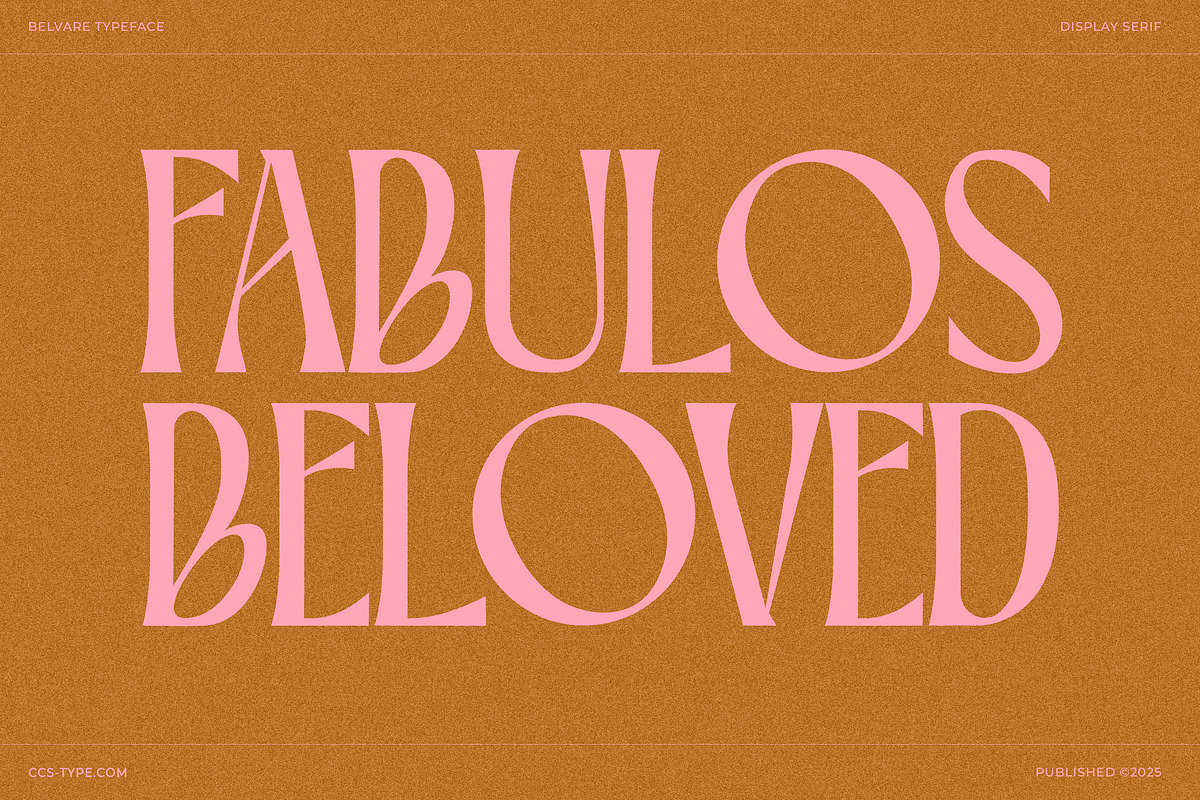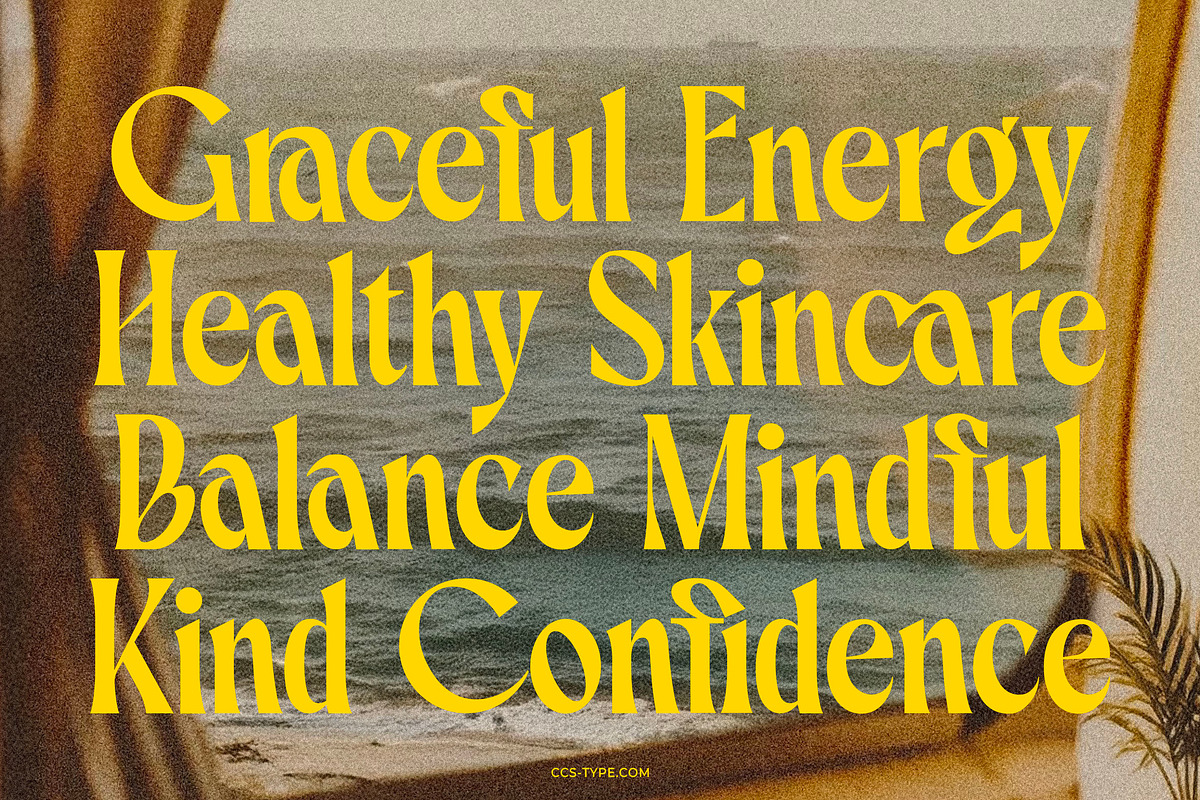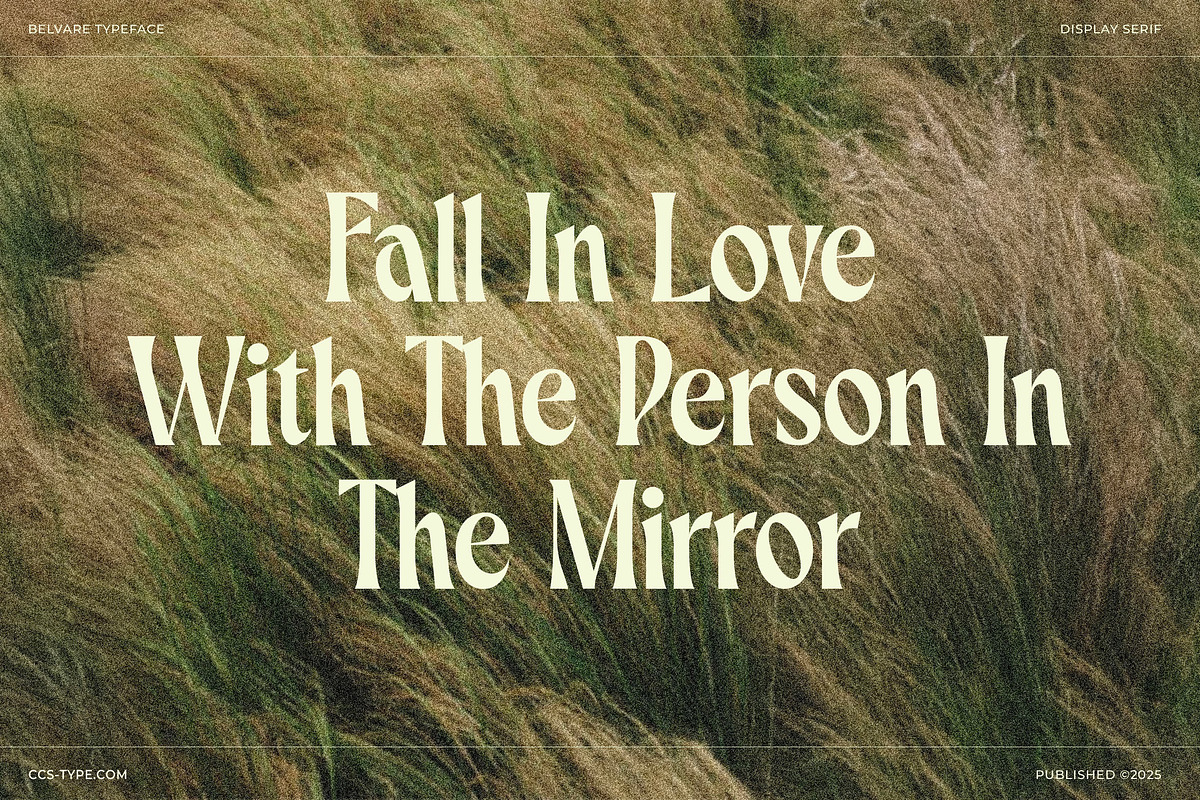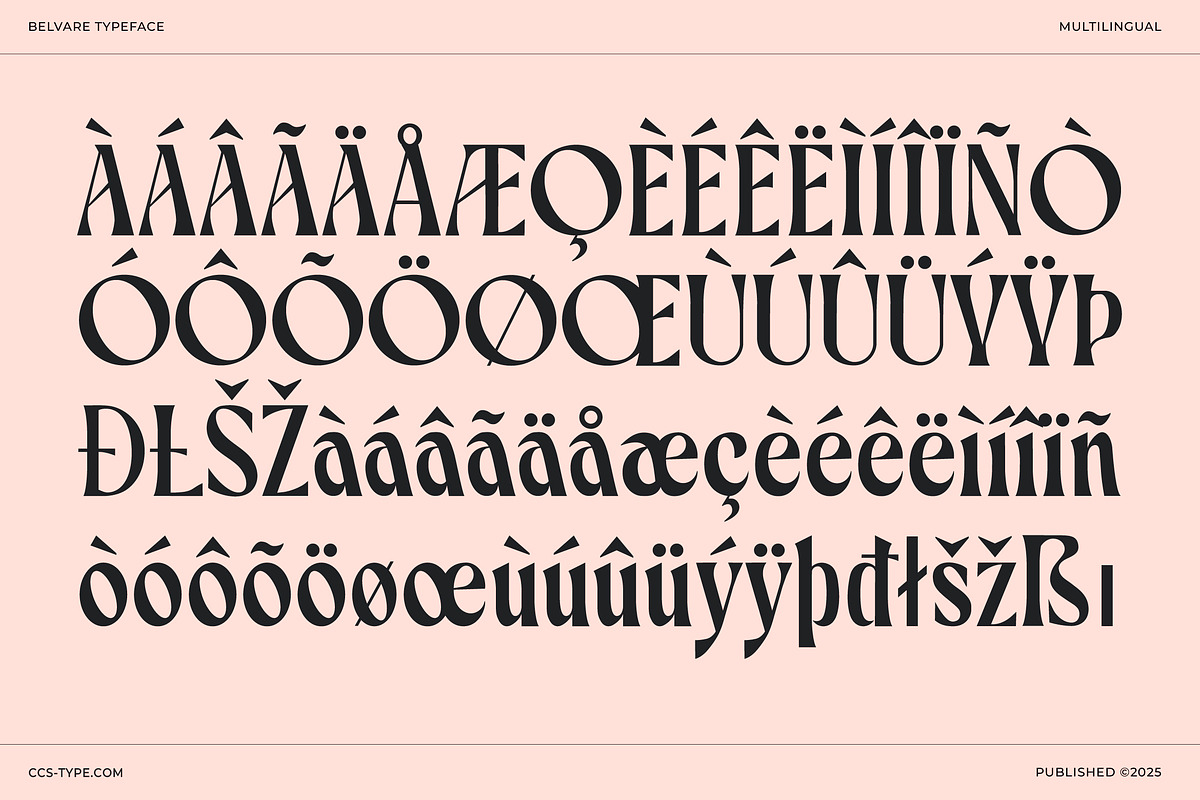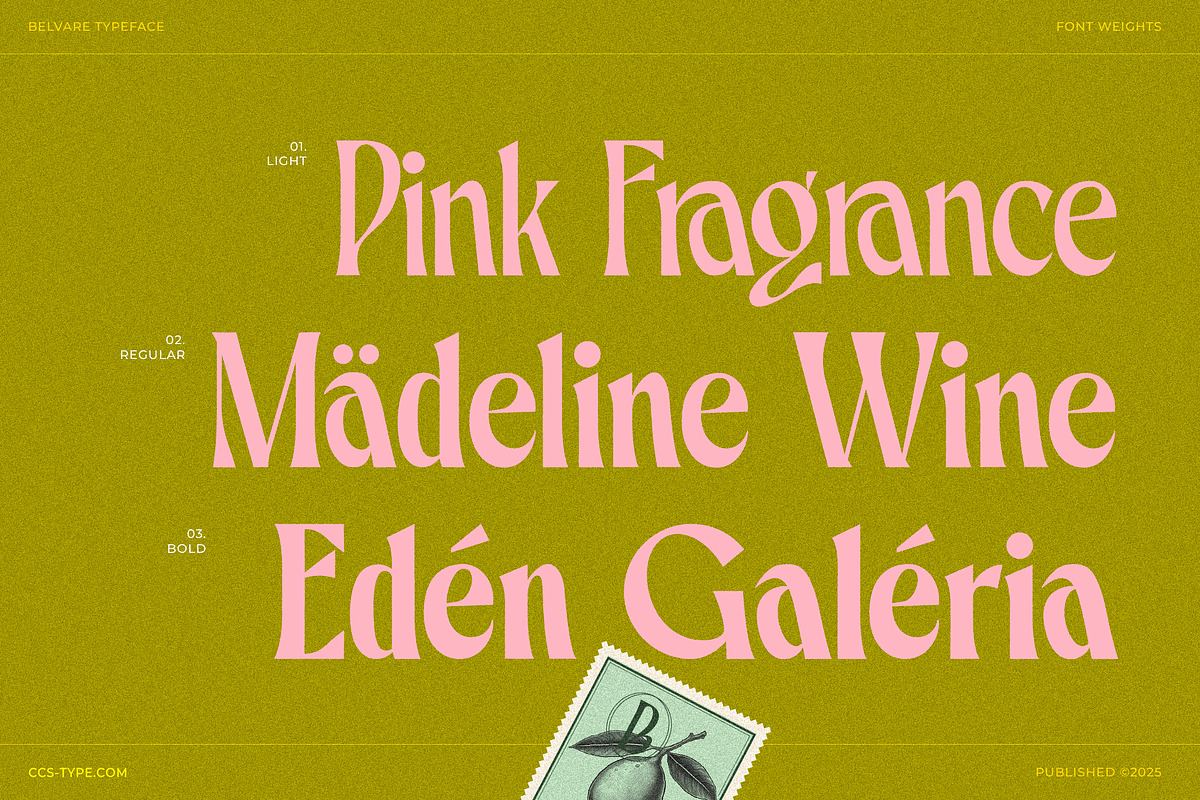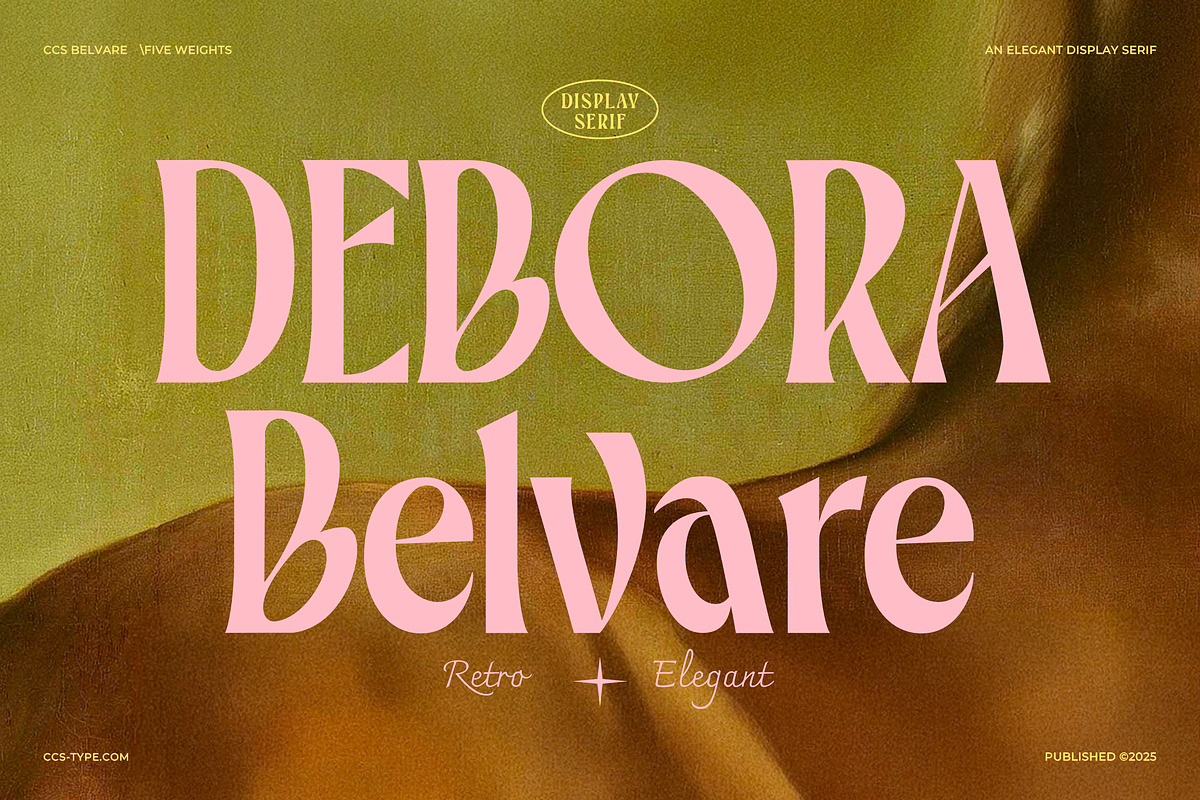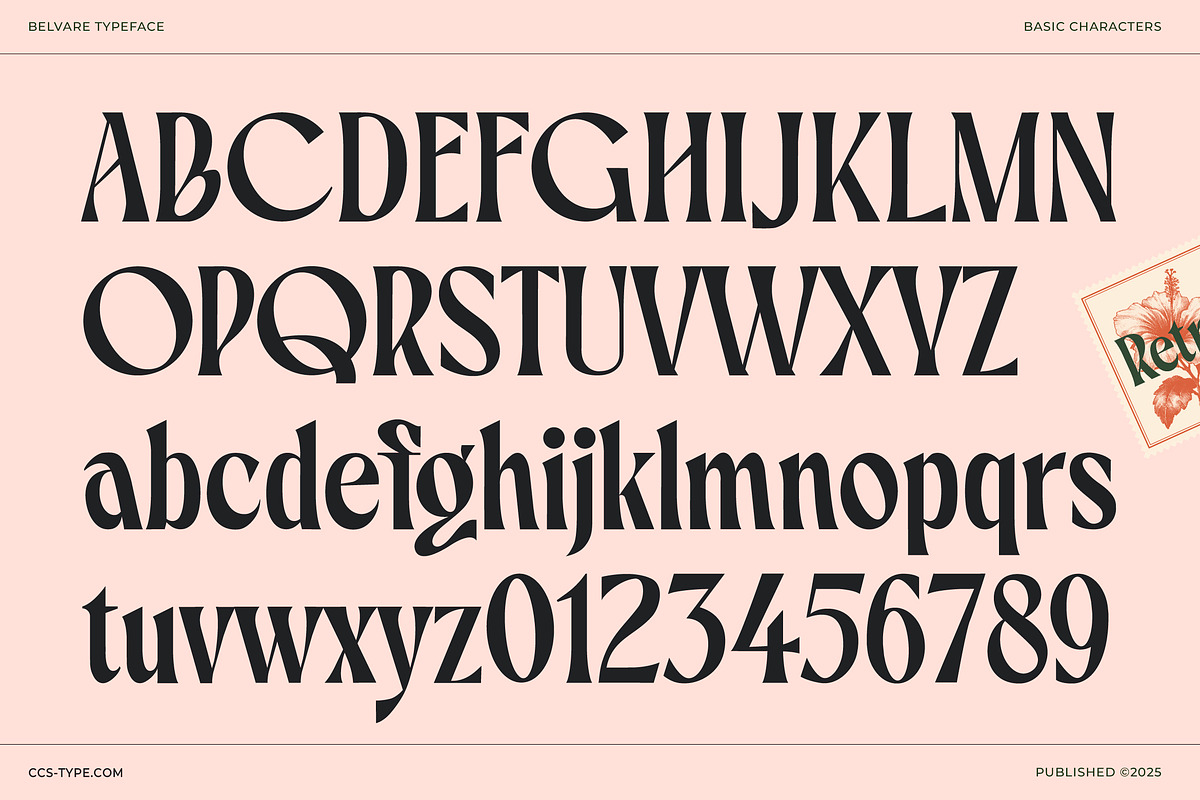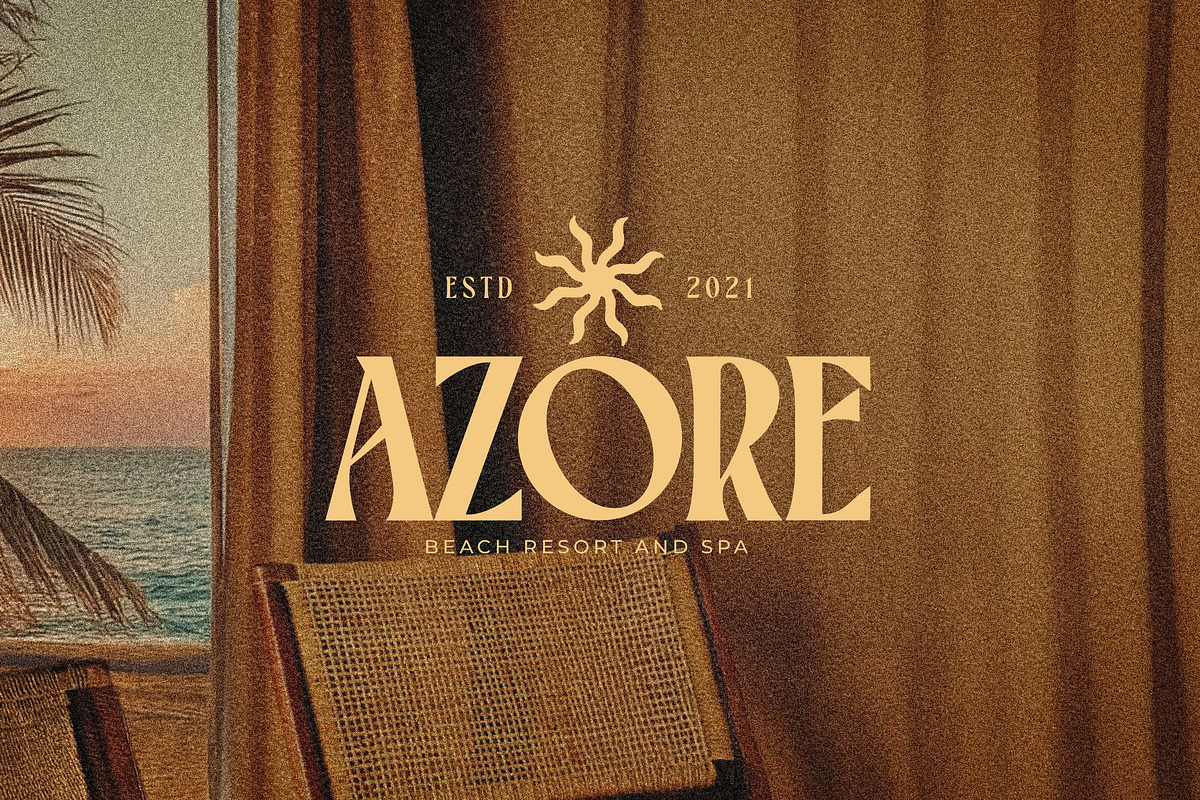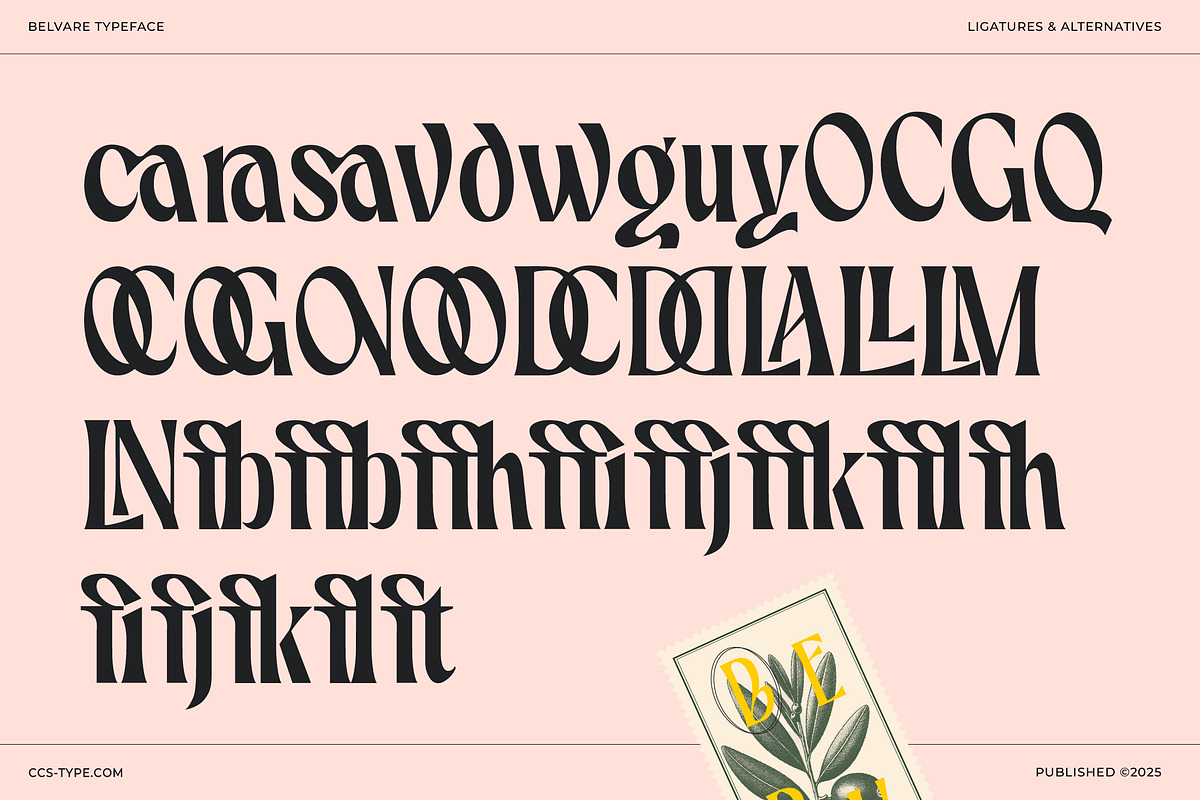
Belvare - Retro Aesthetic Serif
Introducing Belvare, a sophisticated retro-inspired Serif font that exudes timeless elegance. Available in three weights – Light, Regular, and Bold – Belvare offers versatility for a range of design projects. Its rounded letter proportions create a friendly and approachable feel, while the condensed glyphs and distinctive large, rounded O and C characters add a touch of unique character. A carefully curated selection of alternates further enhances the font's rhythmic and dynamic personality. Belvare is perfectly suited for headlines, titles, branding, posters, and any project where a touch of retro charm and modern sensibility is desired. Download Belvare today and elevate your designs with its refined and captivating presence!
3 Weights font
Stylistic Alternates & Ligatures